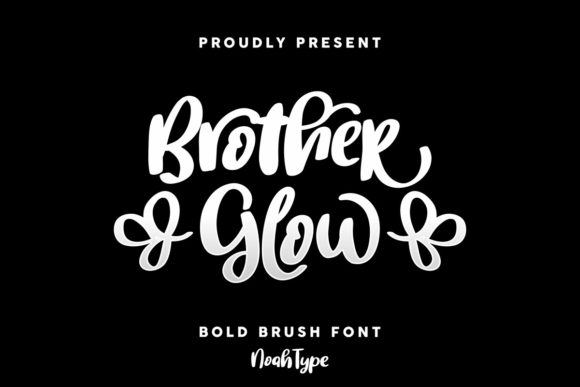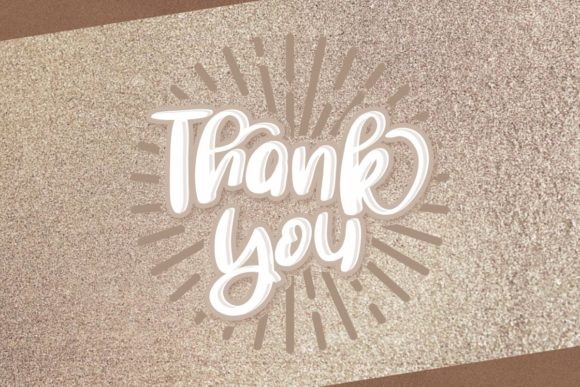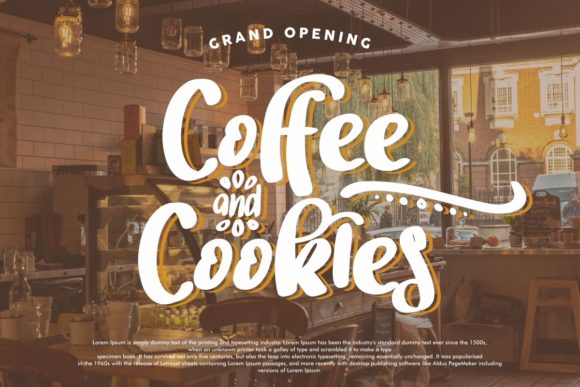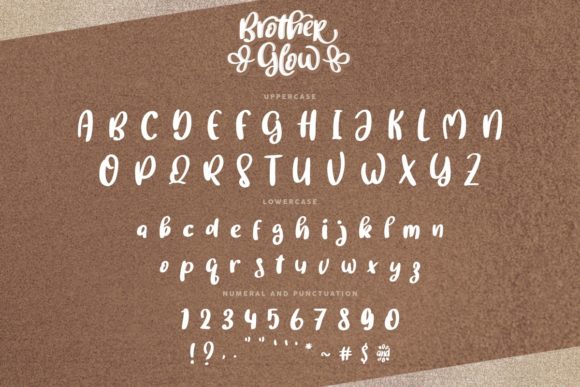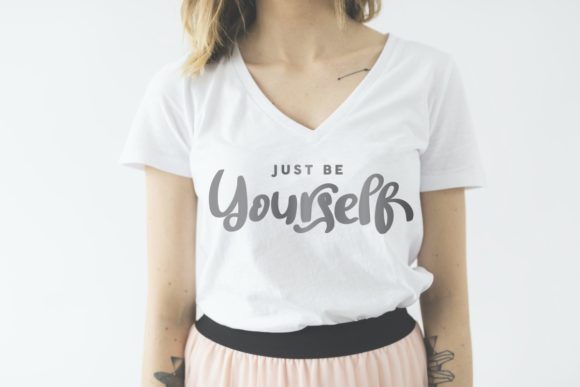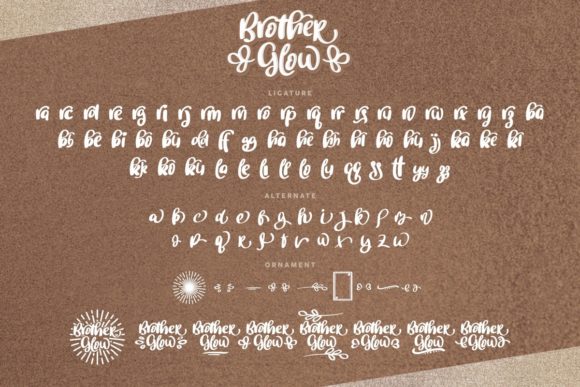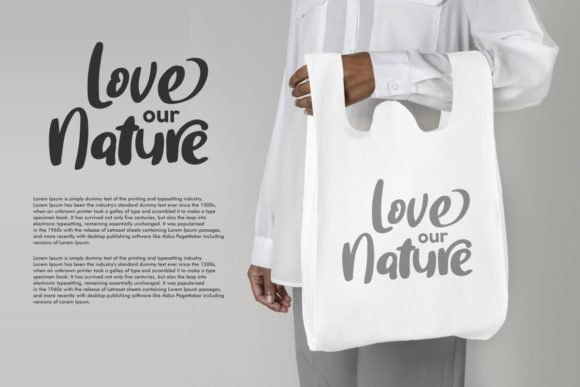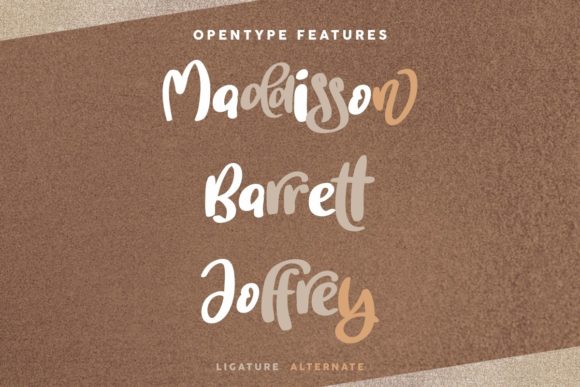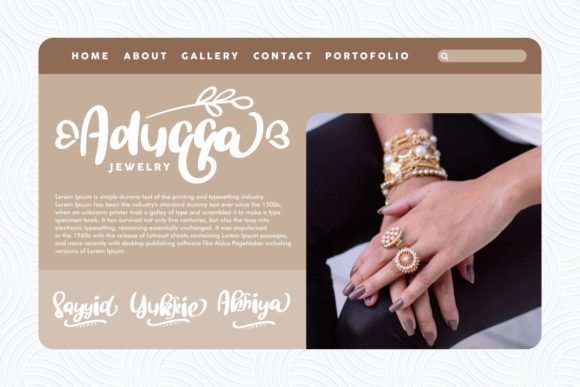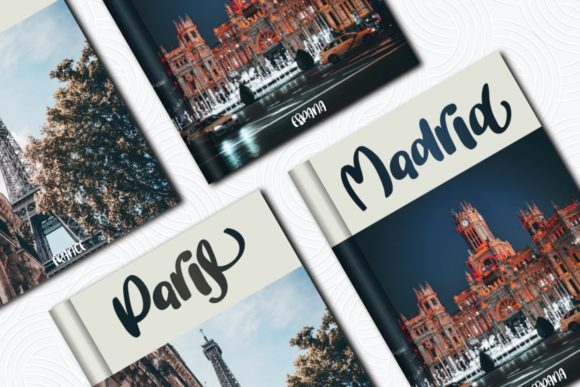
About Brother Glow Font
Brother Glow is an exquisite handwritten font. It maintains its classy calligraphic influences while feeling contemporary and fresh. This font is PUA encoded which means you can access all of the glyphs and swashes with ease!